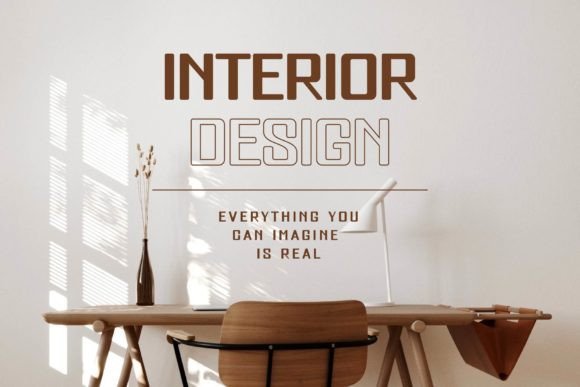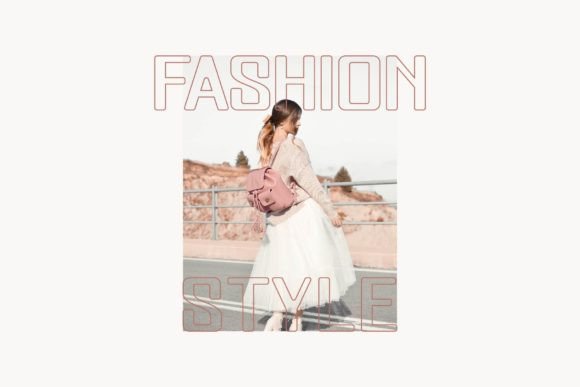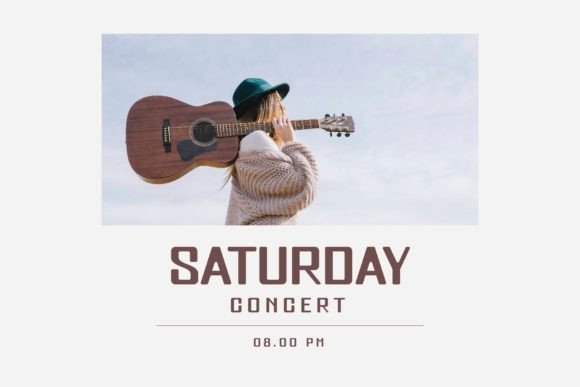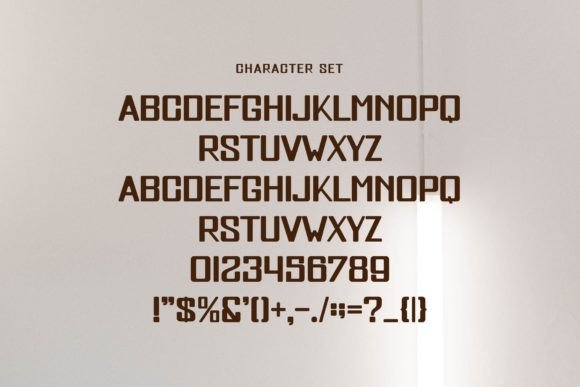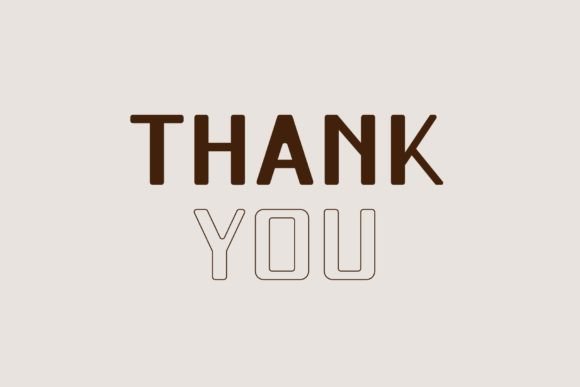
Discover the Elegance of Ghina Font: A Minimalist’s Dream Typeface
In the world of design, a font can make all the difference. It can elevate your project from ordinary to extraordinary, convey the right message, and capture the essence of your brand. For designers and crafters looking for a typeface that embodies simplicity, elegance, and versatility, Ghina Sans is an excellent choice. Inspired by the famous minimalist logo, Ghina Sans is a typeface font perfect for designing templates, brochures, videos, advertising branding, logos, invitations, layout design, elegant crafting, beauty design, and more.
The Inspiration Behind Ghina Sans
Ghina Sans draws its inspiration from the minimalist logo design movement, which emphasizes simplicity and clean lines. This typeface takes the core principles of minimalist design – simplicity, clarity, and precision – and translates them into a versatile font suitable for a wide range of applications. Whether you’re working on a branding project, creating elegant crafts, or designing beauty products, Ghina Sans offers the perfect blend of form and function.
Key Features of Ghina Sans
- Clean Lines: Ghina Sans boasts clean, crisp lines that give it a modern and sophisticated look. This makes it ideal for designs that require a touch of elegance and refinement.
- Versatility: This typeface is incredibly versatile, suitable for both digital and print projects. From video scripts and brochure designs to logo creation and invitation cards, Ghina Sans adapts seamlessly to various design needs.
- Legibility: One of the standout features of Ghina Sans is its exceptional legibility. Even at smaller sizes, the font remains clear and easy to read, making it perfect for body text and captions.
- Elegance: Ghina Sans carries an air of elegance that can elevate any design. Its minimalist approach ensures that the focus remains on the content, making it an excellent choice for beauty design, crafting, and luxury brands.
Applications of Ghina Sans
The versatility of Ghina Sans means it can be used in a multitude of design projects. Here are some of the areas where this typeface shines:
- Branding and Logos: Create a lasting impression with a logo that exudes simplicity and sophistication. Ghina Sans is perfect for crafting memorable brand identities.
- Marketing Materials: From brochures and flyers to posters and banners, Ghina Sans can help your marketing materials stand out with its clean and professional look.
- Digital Content: Enhance your digital presence with a font that looks great on screens. Ghina Sans is suitable for website design, social media graphics, and video scripts.
- Elegant Crafts and Beauty Design: For crafters and beauty brands, Ghina Sans offers a touch of elegance and refinement. Use it for product labels, packaging, and promotional materials to convey a sense of luxury and quality.
Tips for Using Ghina Sans Effectively
To get the most out of Ghina Sans, consider the following tips:
- Pair with Images: Combine Ghina Sans with high-quality images or illustrations to create visually appealing designs.
- Experiment with Spacing: Don’t be afraid to experiment with letter spacing and line height to find the perfect balance for your design.
- Use in Combination with Other Fonts: While Ghina Sans is beautiful on its own, it can also be paired with other fonts to create contrast and hierarchy in your design.
Ghina Sans is more than just a typeface font; it’s a design solution that offers elegance, versatility, and clarity. Whether you’re a designer working on a branding project, a crafter looking for a sophisticated font for your products, or a beauty brand aiming to convey luxury and quality, Ghina Sans is an excellent choice. Its minimalist roots ensure that it will remain a timeless and versatile tool in your design arsenal.
Embrace the simplicity and elegance of Ghina Sans in your next project. Experience how this beautifully crafted typeface can elevate your designs and help you achieve your creative goals.